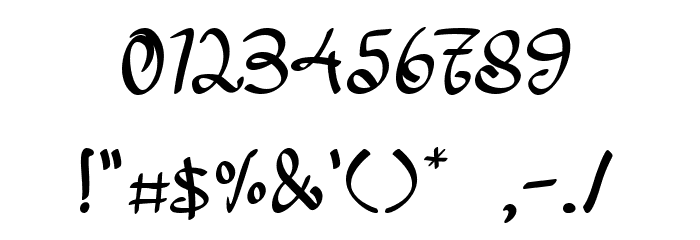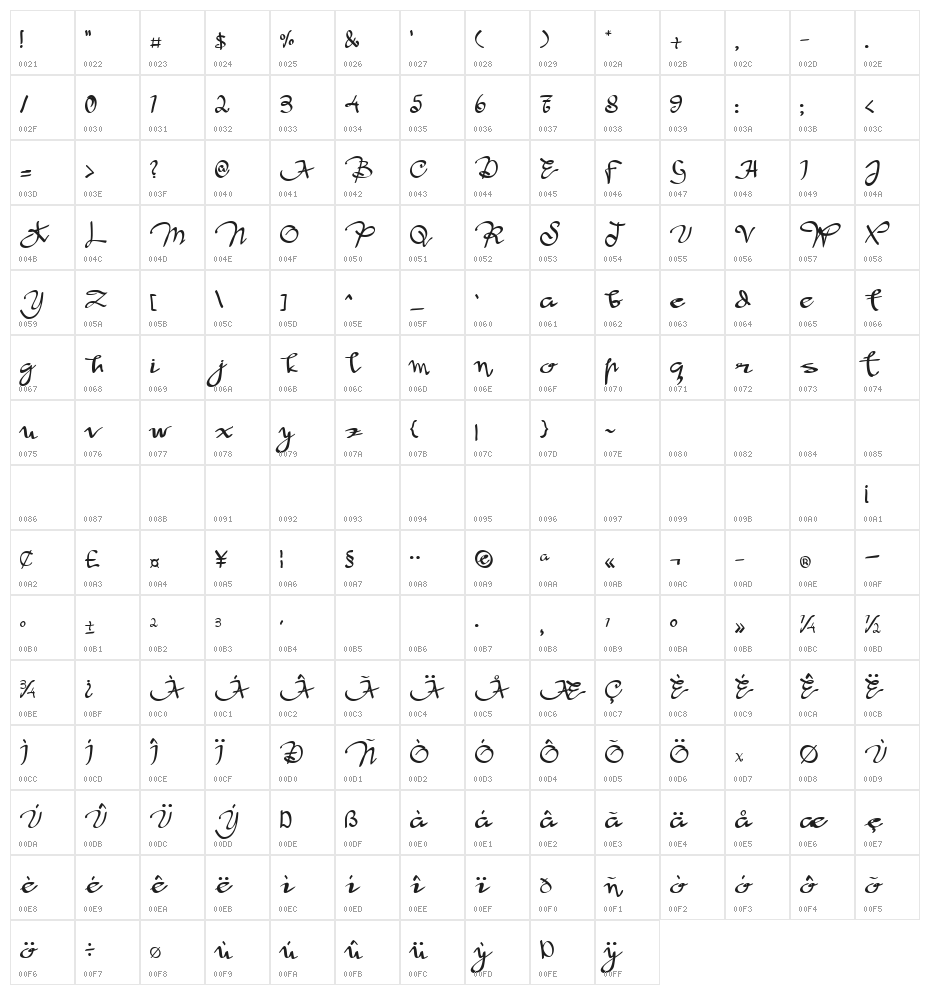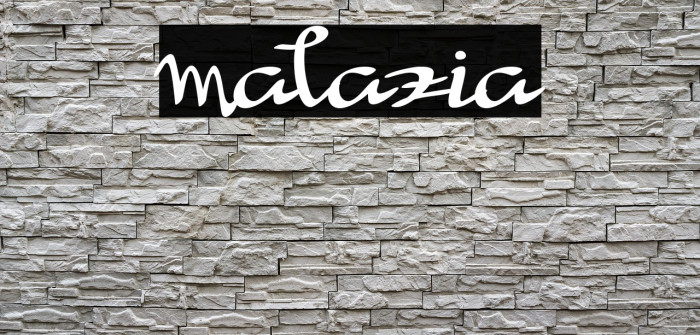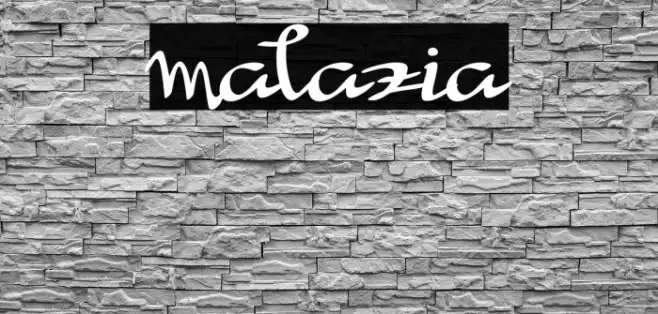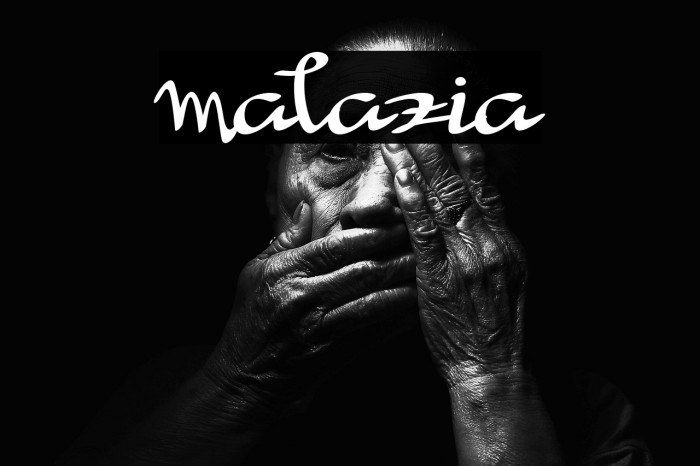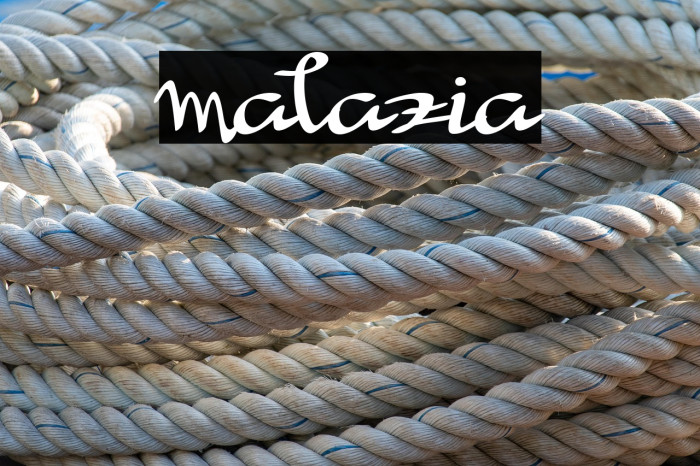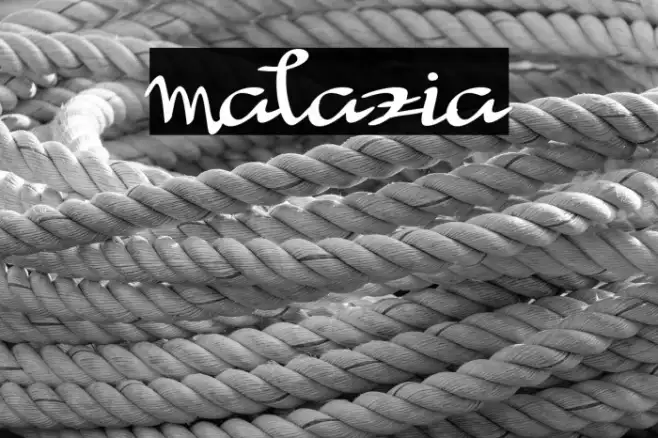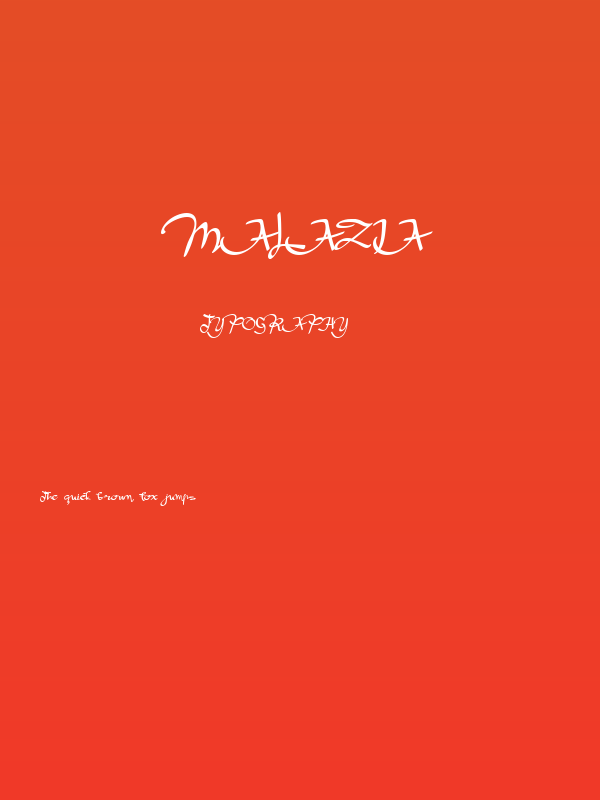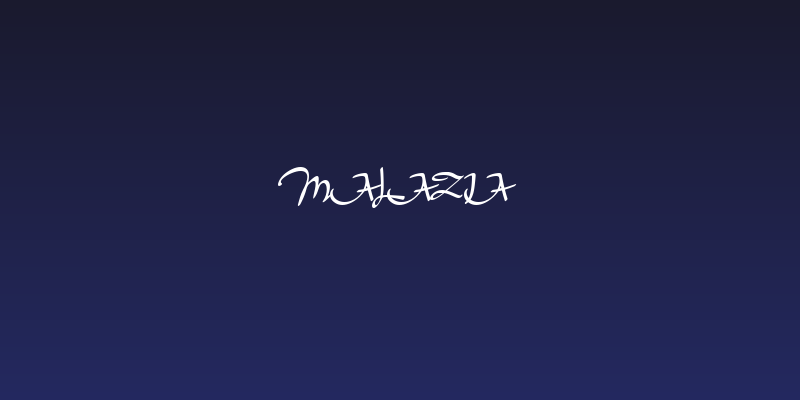
malazia Font
This font features an elegant and flowing script style, characterized by its smooth, cursive letterforms. The uppercase letters are bold and sweeping, with dramatic flourishes that give a sense of movement and grace. The lowercase letters maintain a consistent flow, with rounded edges and a slightly playful touch. Numbers are designed to match the overall aesthetic, with curves and loops that integrate seamlessly with the letters. Special characters are crafted with the same attention to detail, ensuring they complement the font's overall style. This font is ideal for projects that require a touch of sophistication and elegance, such as invitations, branding, and decorative headings.
An elegant, flowing script font with bold, cursive letterforms.
- Proposed Projects: Ideal for wedding invitations, branding, decorative headings, and elegant signage.
- Overall Style: Elegant, Decorative
- Use Case: Headlines, Logos, Invitations